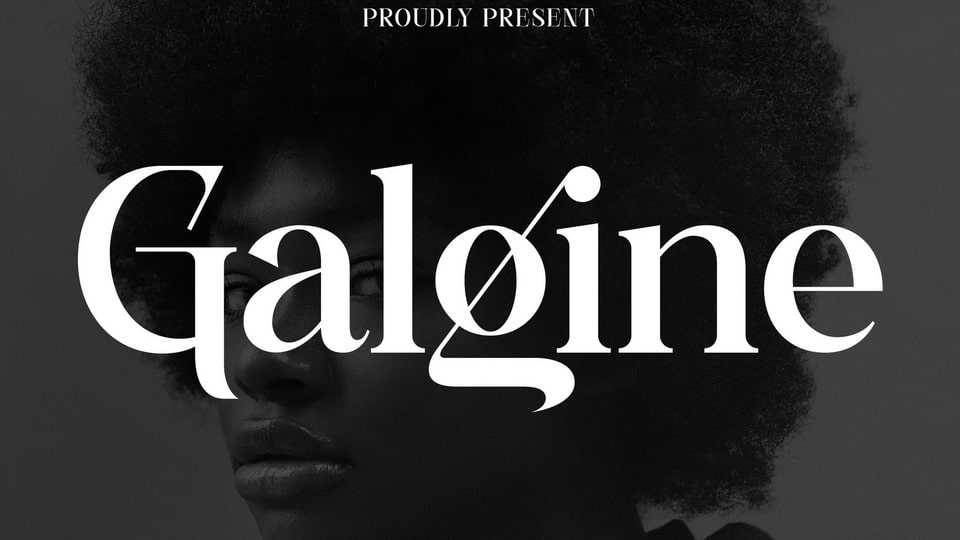
Download Galgine font, a modern and sophisticated typeface that has own unique style and elegant look. Galgine font is perfect for an elegant and luxury logo, book or movie title design, fashion brand, magazine, clothes, lettering, quotes, and so much more.